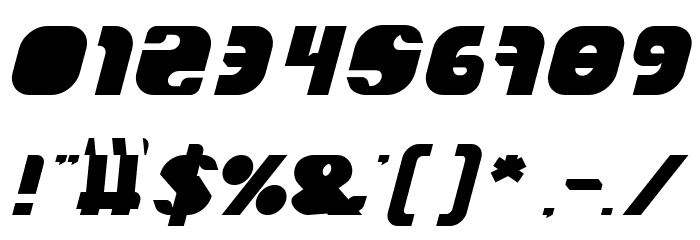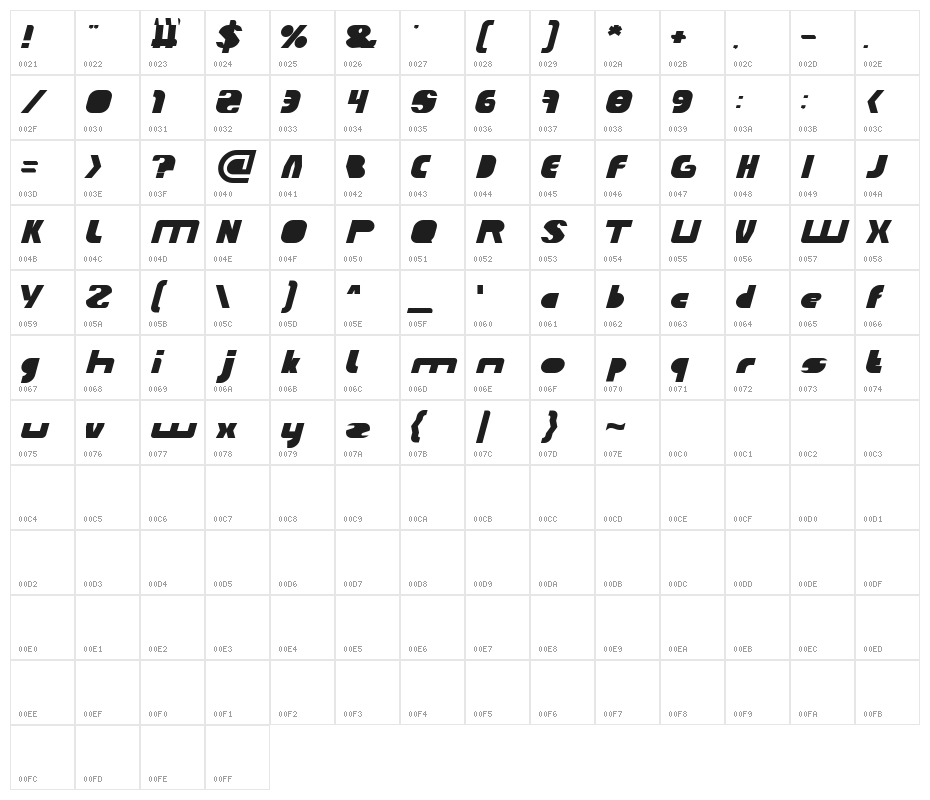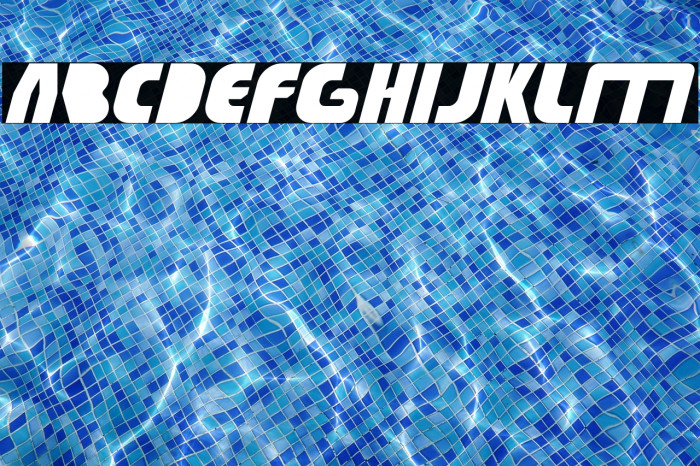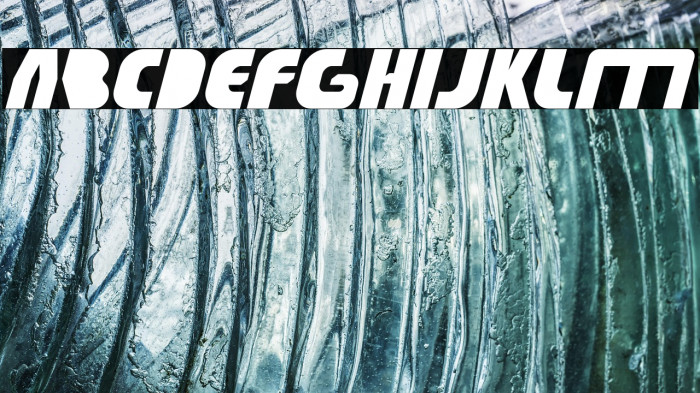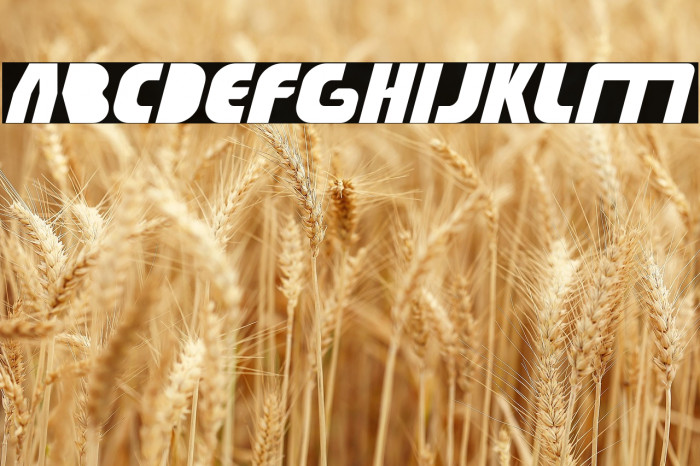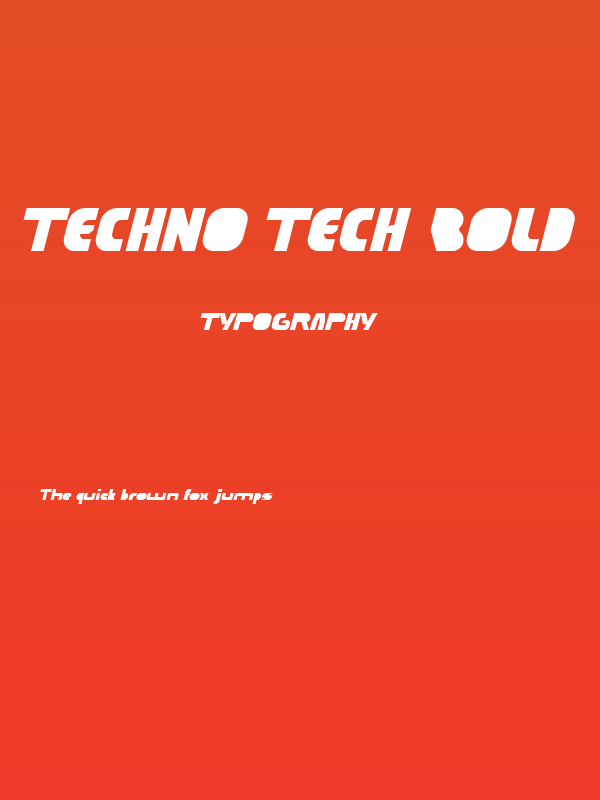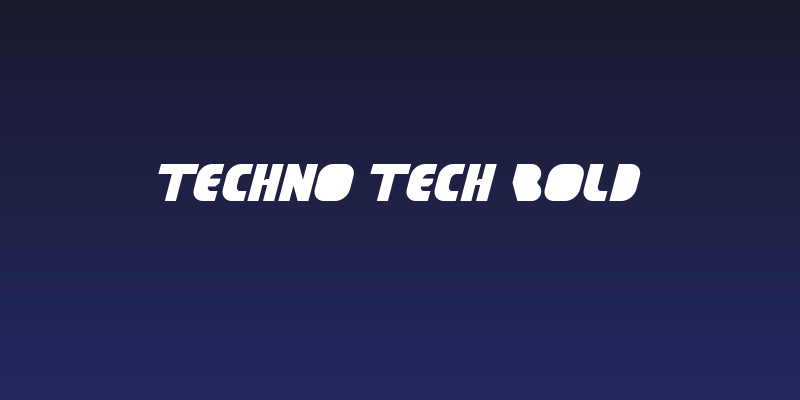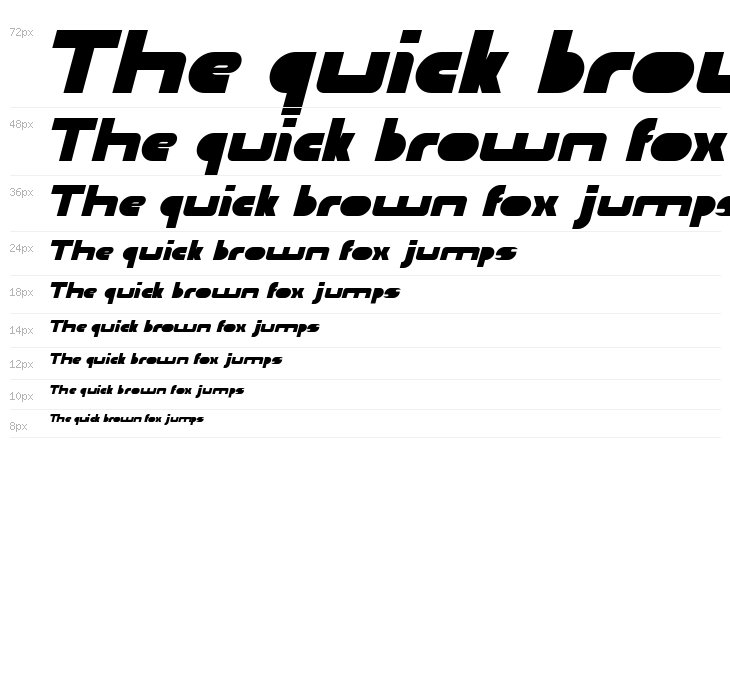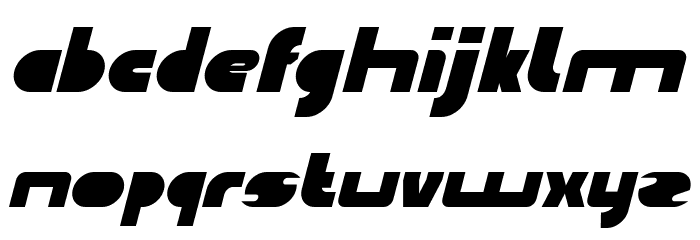
TECHNO TECH Bold Font
TECHNO TECH Bold Description
This font features a bold and futuristic design with a strong geometric influence. The characters are wide and have a distinct angularity, giving them a modern and tech-inspired appearance. The uppercase and lowercase letters maintain a consistent style, with sharp edges and a uniform thickness that enhances readability. The numbers and special characters are designed to match the overall aesthetic, making them suitable for digital and print media. The font's boldness and unique style make it ideal for projects that require a strong visual impact.
| Proposed Projects | Ideal for technology branding, sci-fi themed projects, video game titles, and digital interfaces. |